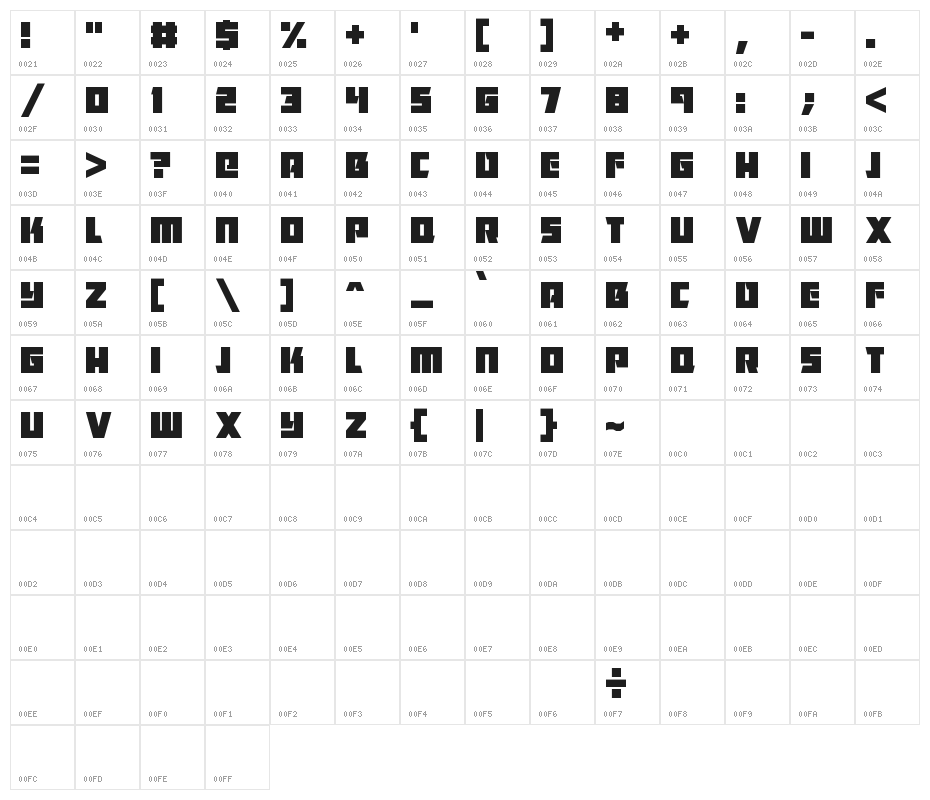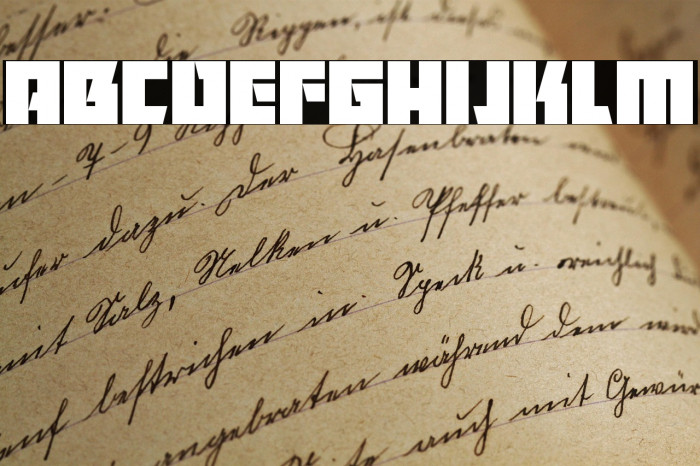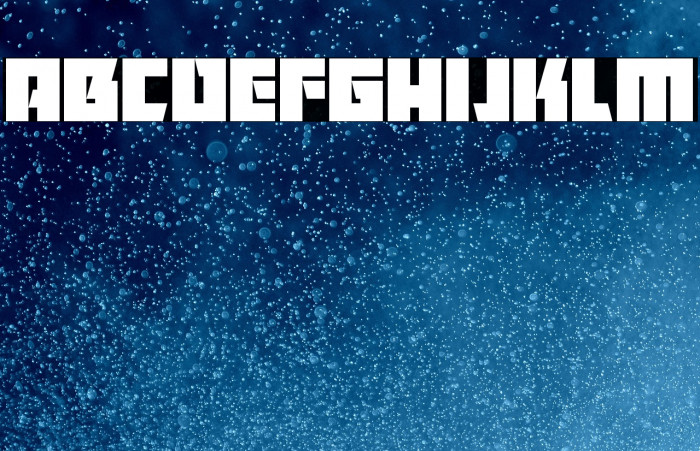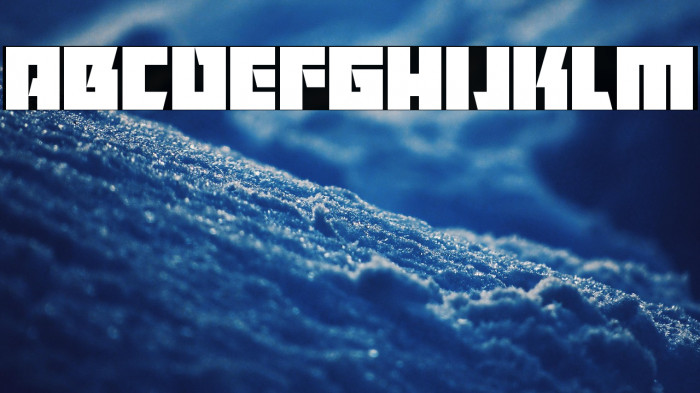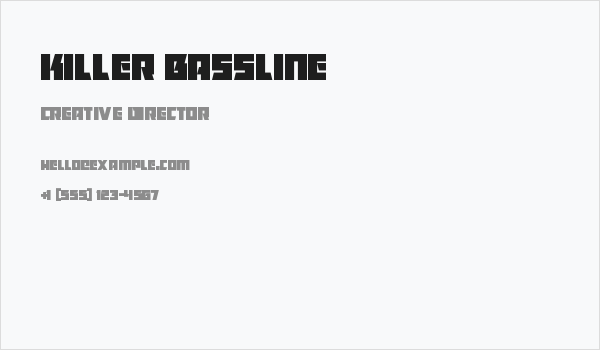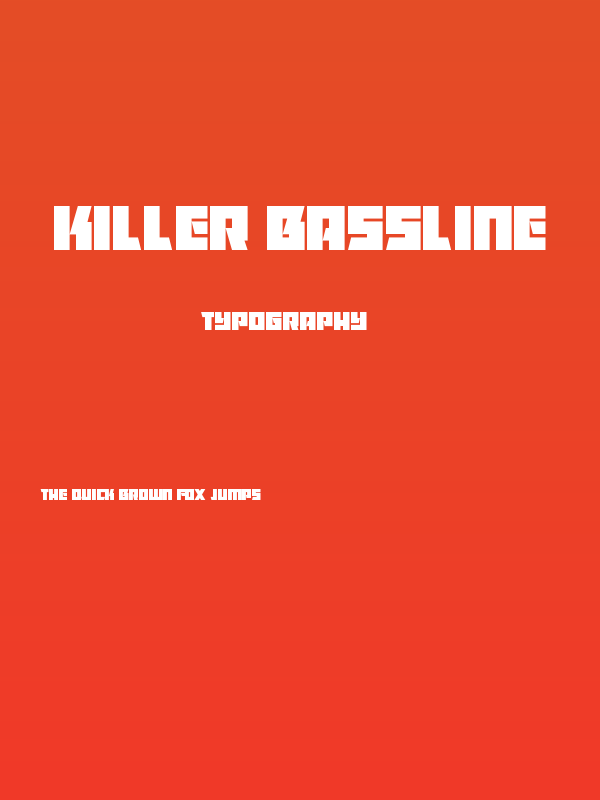
Killer Bassline Font
Killer Bassline Description
This font features a bold, geometric design with sharp angles and a blocky appearance. The characters are uniformly wide, creating a strong and impactful visual presence. The uppercase and lowercase letters share similar structural elements, emphasizing consistency and cohesion. The numerals and special characters maintain the same bold and angular style, ensuring a unified look across all glyphs. This font's distinct style makes it ideal for attention-grabbing designs.
| Proposed Projects | Ideal for music album covers, video game titles, posters, and branding that requires a strong, edgy look. |